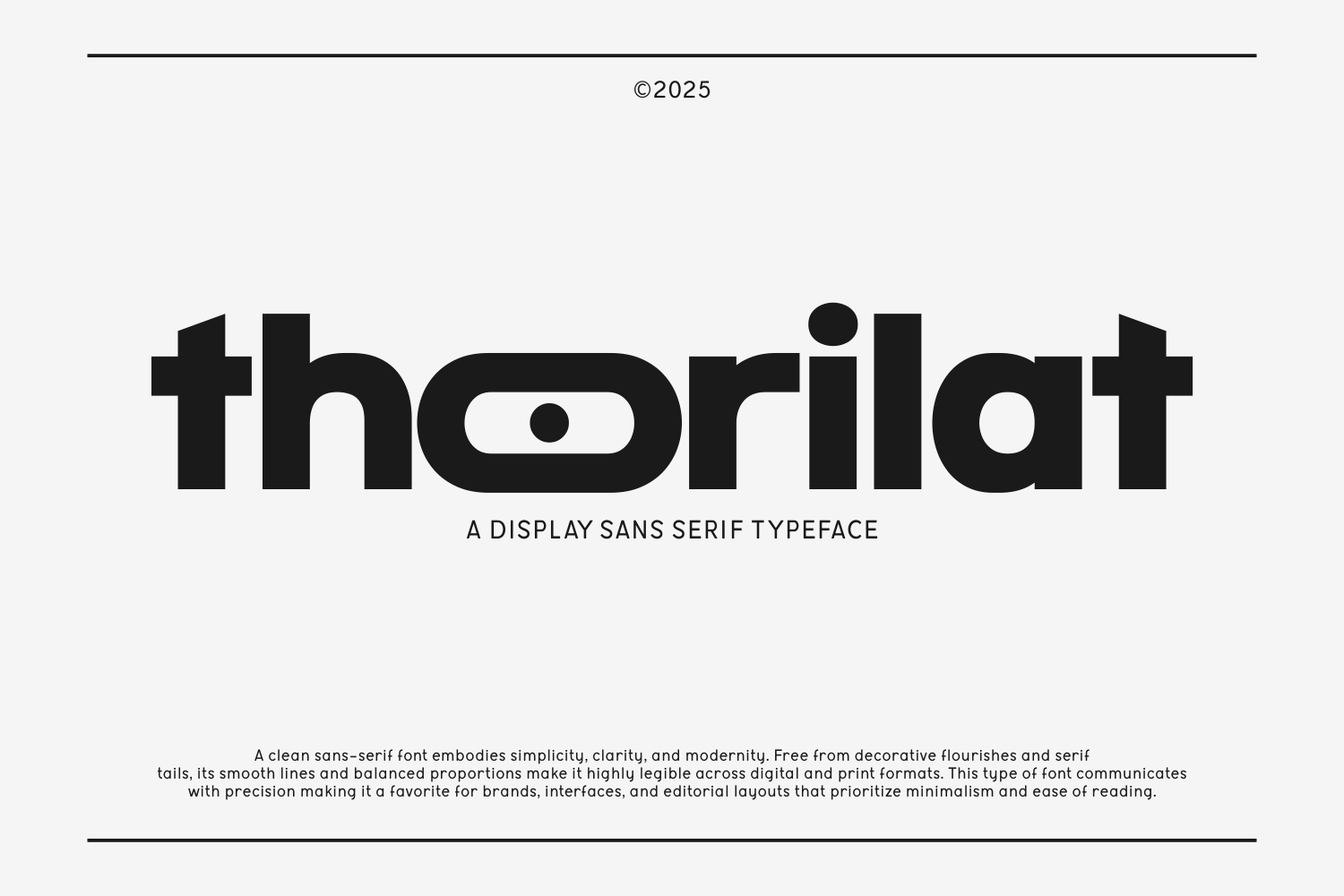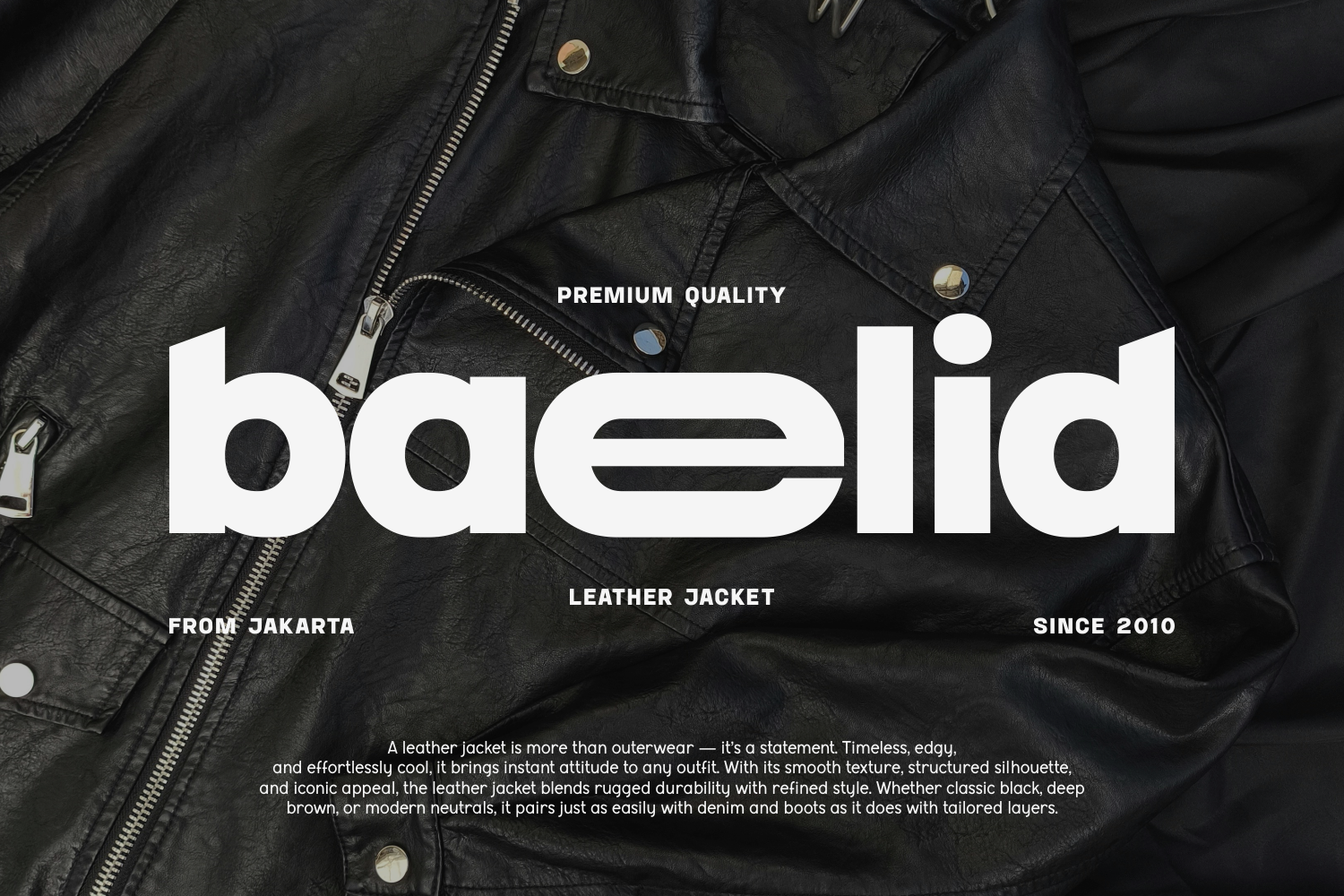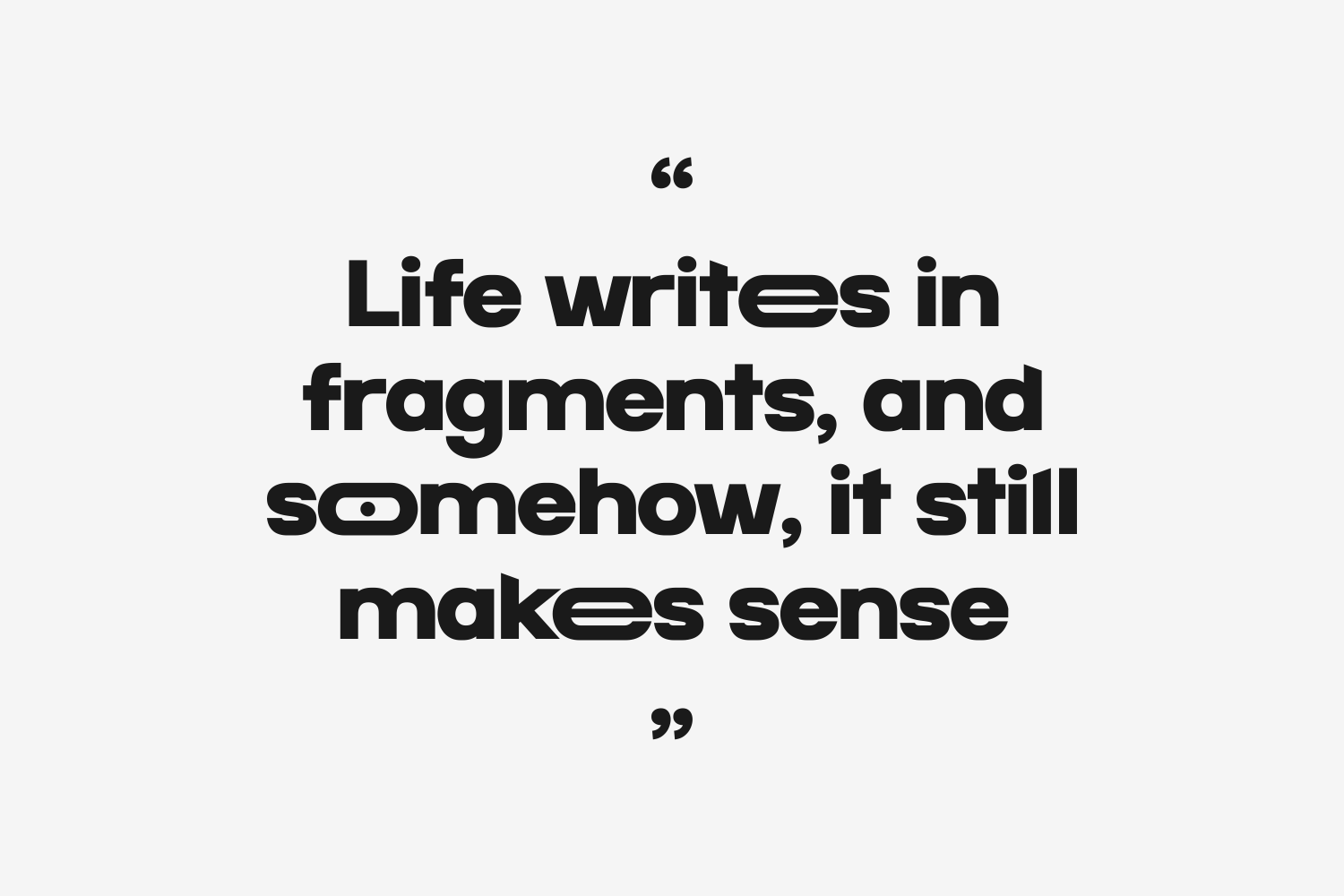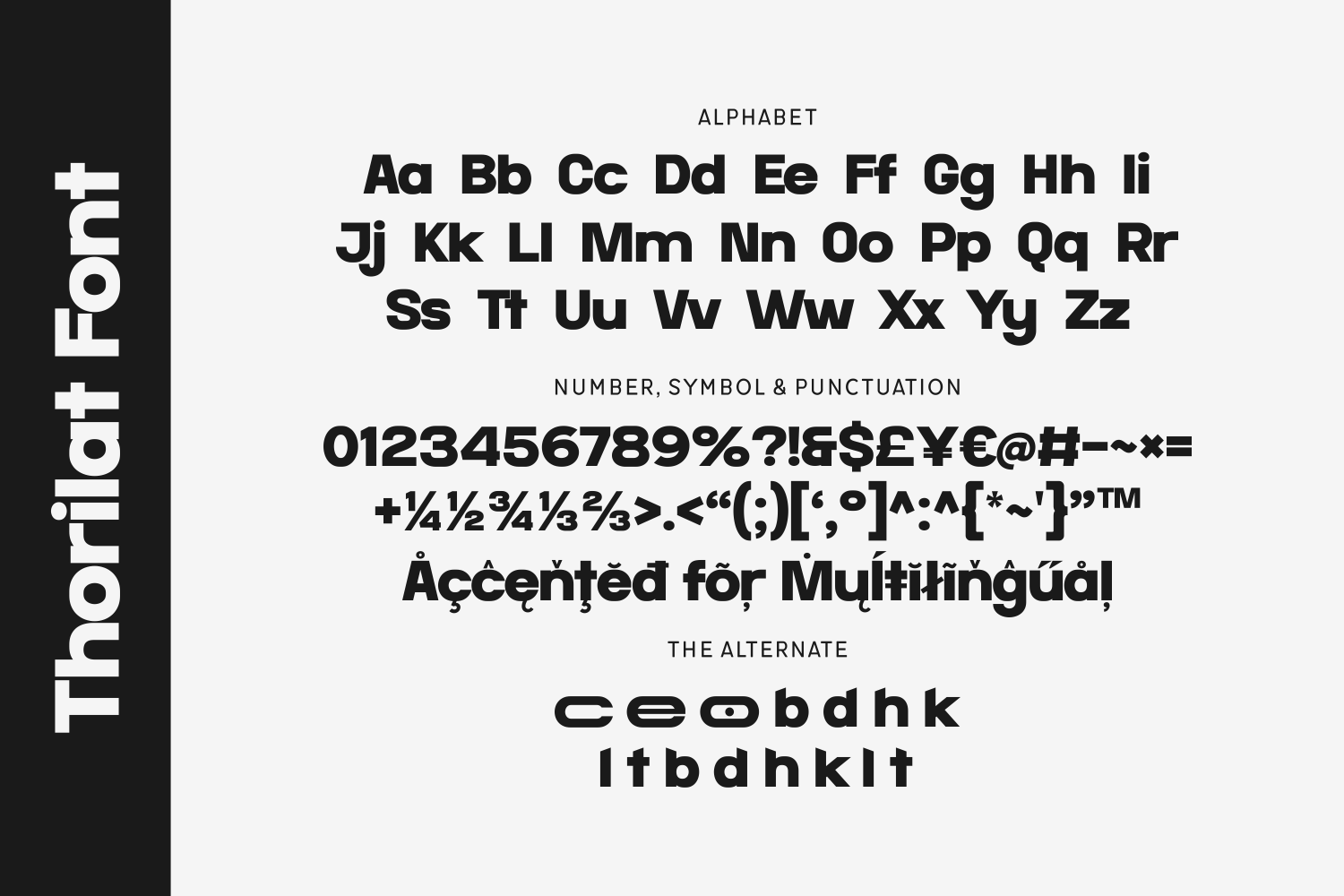
Thorilat is a bold and futuristic display sans serif font, engineered for modern branding with a distinctly geometric edge. Its strong, rounded forms and minimalist details exude confidence and tech-forward aesthetics.